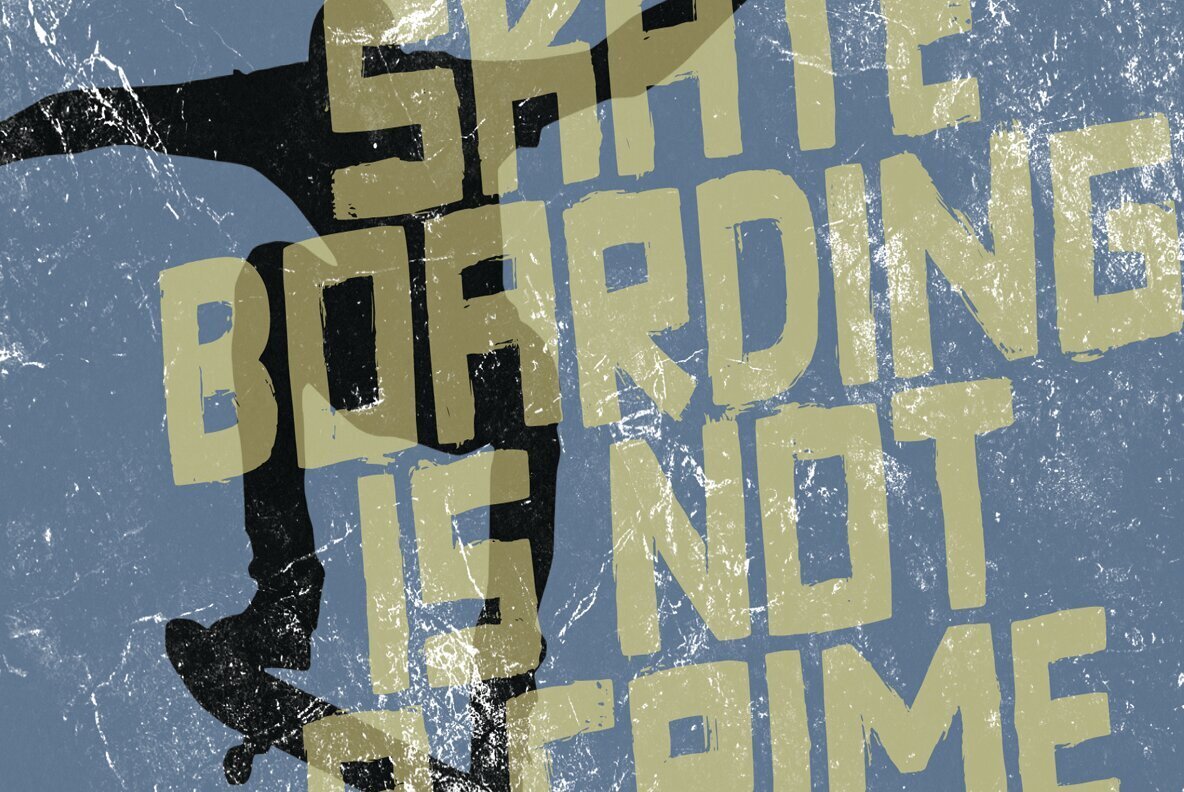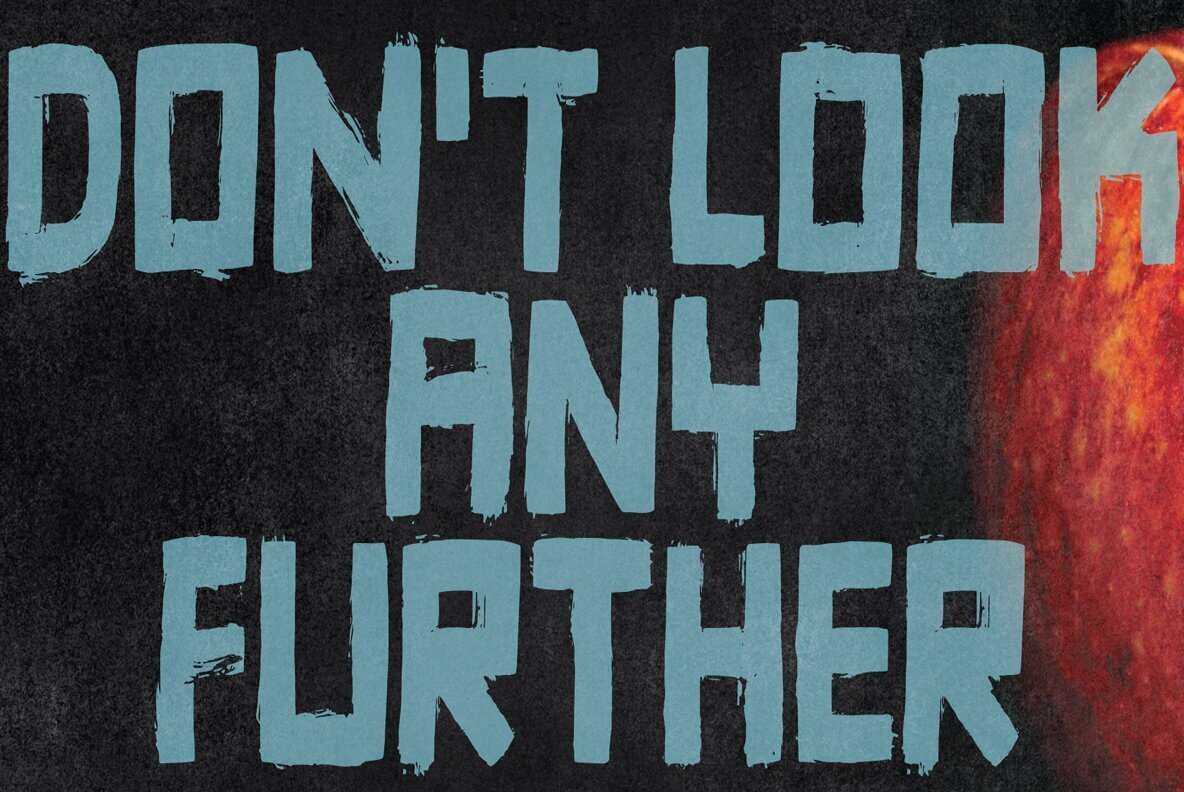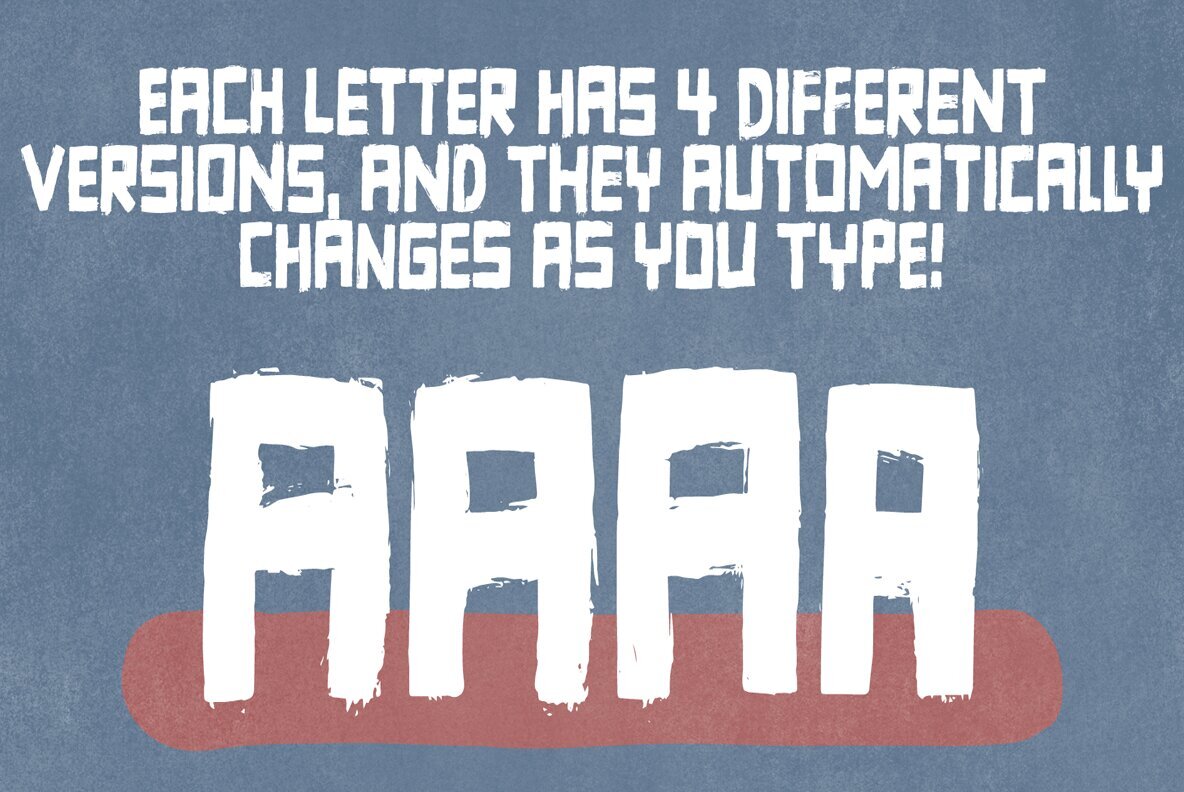
Danger Agenda Font
The spirit of punk, grunge, skateboarding, and graffiti is alive and vibrant in the Danger Agenda font. Inspired by a late-night conversation, this typeface captures the untamed essence of these subcultures without overwhelming any single element.Danger Agenda: A Blend of Punk, Grunge, and Skateboarding Style
A Unique Typeface Inspired by Subcultural Movements